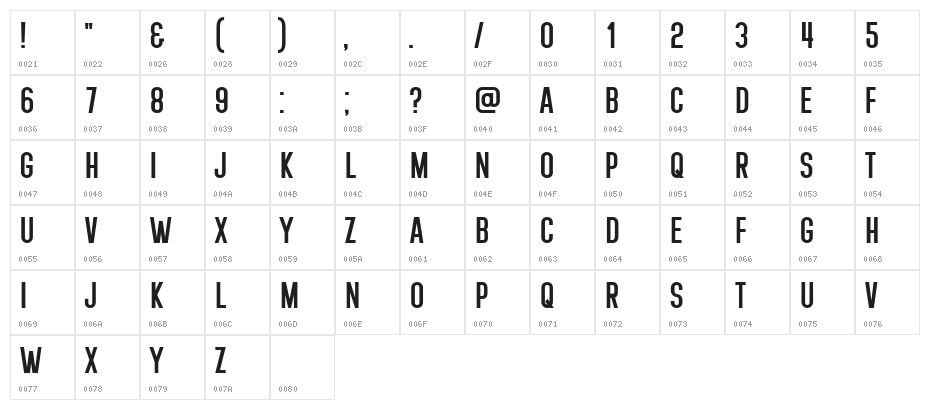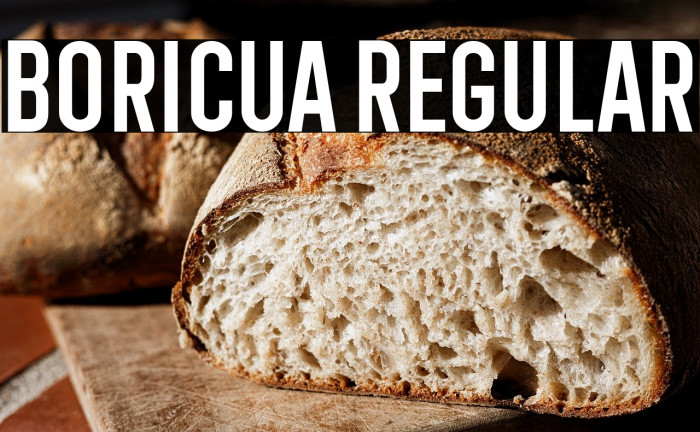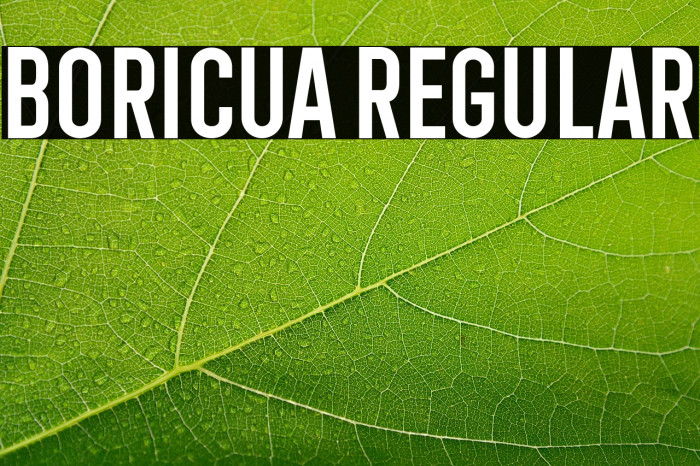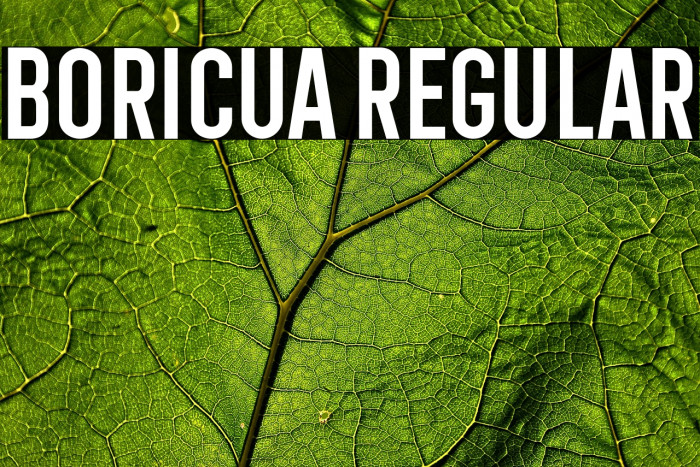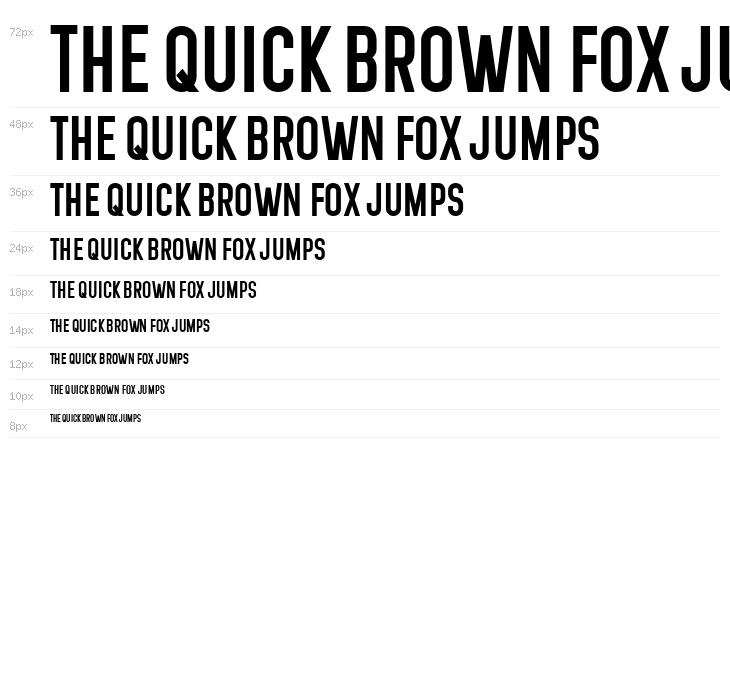
Boricua Regular Font
Boricua Regular Description
This font features a bold and impactful design with strong, clean lines and a modern aesthetic. The uppercase letters are tall and slightly condensed, giving a sense of authority and presence. The lowercase letters maintain a consistent style, ensuring readability and uniformity. The numerals are straightforward and align well with the overall style, making them suitable for various applications. Special characters are included, adding versatility to the font's usage. The overall appearance is sleek and professional, making it ideal for projects that require a strong visual impact.
| Proposed Projects | Ideal for branding, headlines, posters, and advertising materials. |